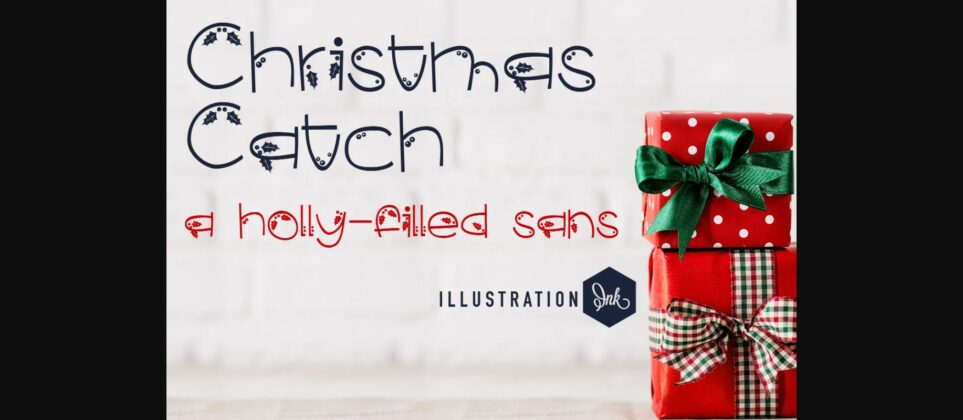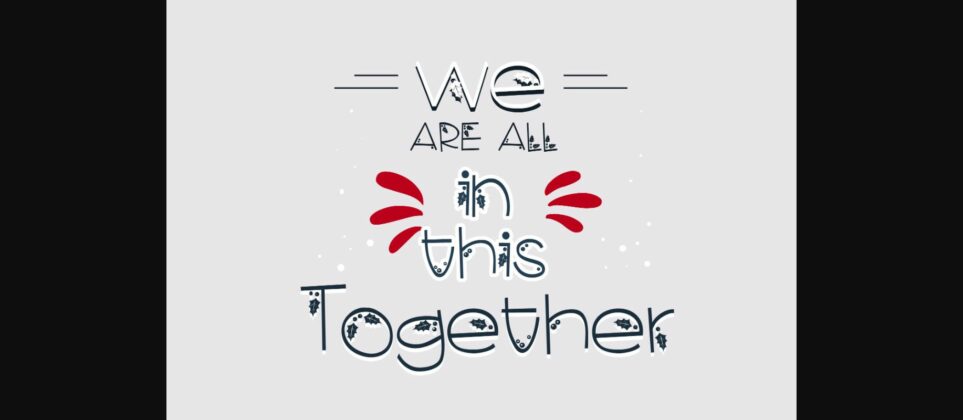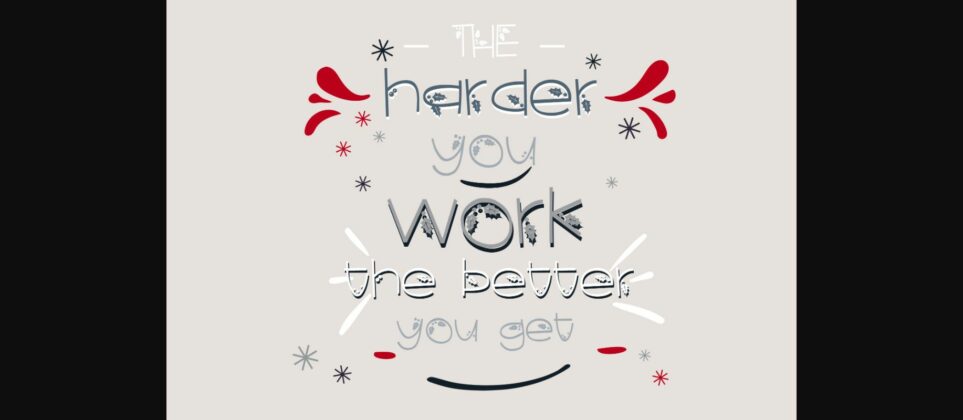
Christmas Catch Font
About Christmas Catch Font
Christmas Catch is a fun and festive handwritten decorative font. It has a modern yet whimsical style and it will undoubtedly immerse your designs into a magical world.